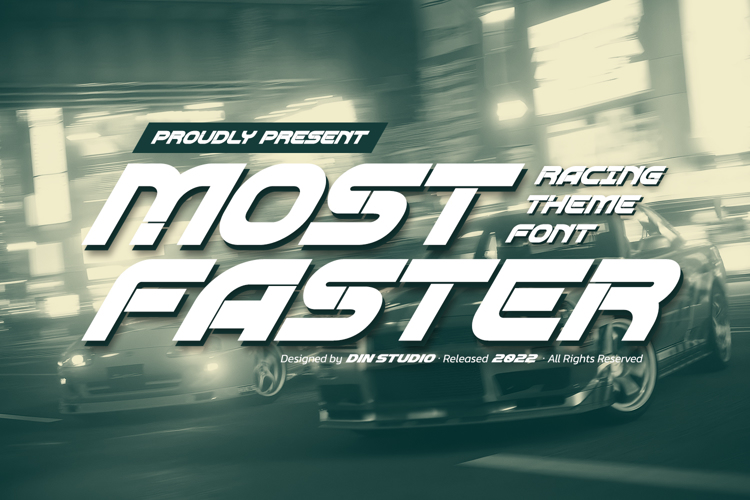
Most Faster Font
Product Description :
Most Faster is cool designs and spectacular features will bring your designs into a brand new level. It is a font created in capital letters with the racing theme reflecting courageous masculine impressions. The strokes on each letter are similar to a sharp-angled rectangle.